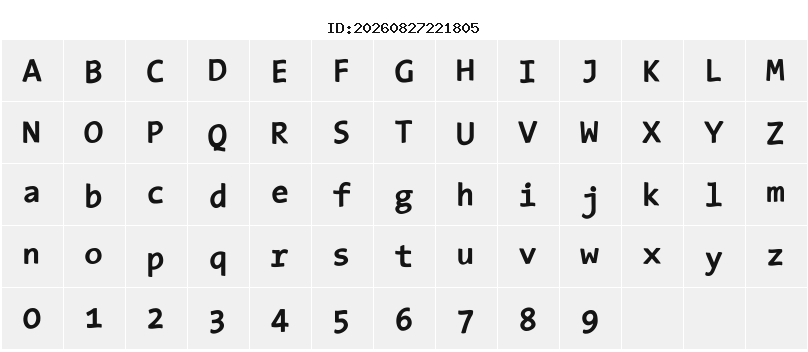
TypeWritersSubstitute-Black Preview
• Font Name: TypeWritersSubstitute-Black
• Full Font Name: TypeWritersSubstitute-Black
About TypeWritersSubstitute-Black.ttf
TypeWritersSubstitute-Black.ttf is a modern, elegant sans-serif font designed for ultimate readability and visual harmony. Perfect for branding, headlines, web design, and print materials.